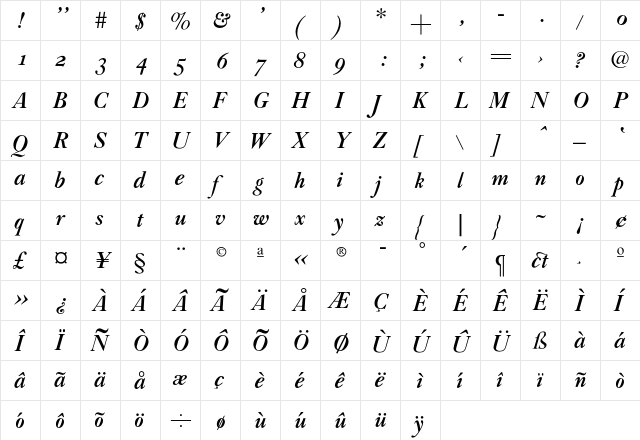
CaslonBoldH-Italic Regular
Design Context for CaslonBoldH-Italic Typeface
CaslonBoldH-Italic is a composed and adaptable typeface that performs quietly and consistently across a wide range of design contexts. Its italic angle brings a sense of urgency and motion to the letterforms. Its bold stroke weight gives it real presence on the page.
Pro Tip: Use CaslonBoldH-Italic for emphasis, pull quotes, and subheadings where its slanted energy can add rhythm to the layout.